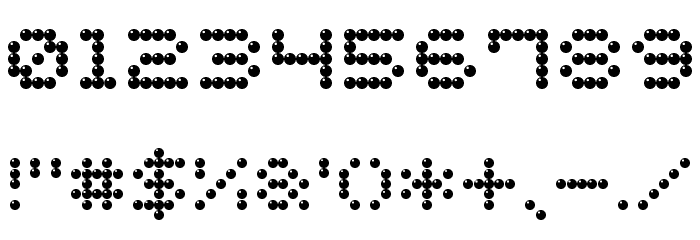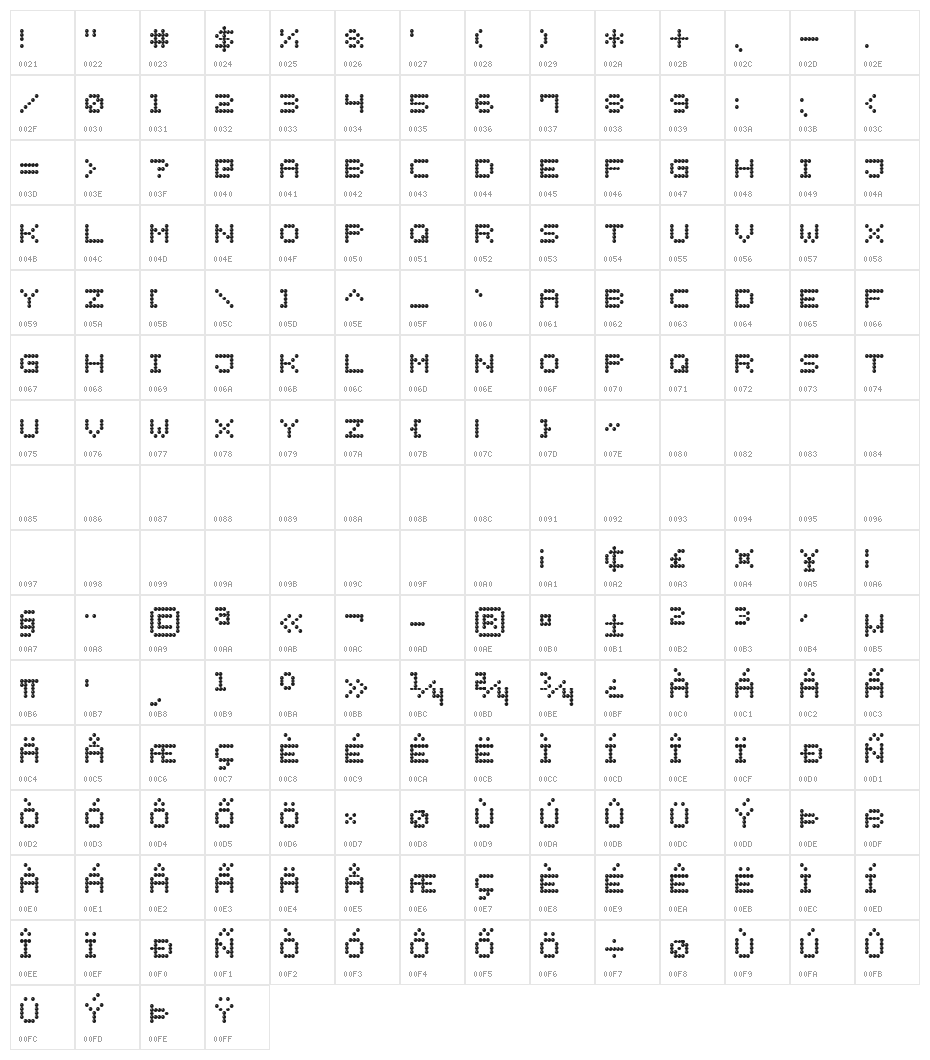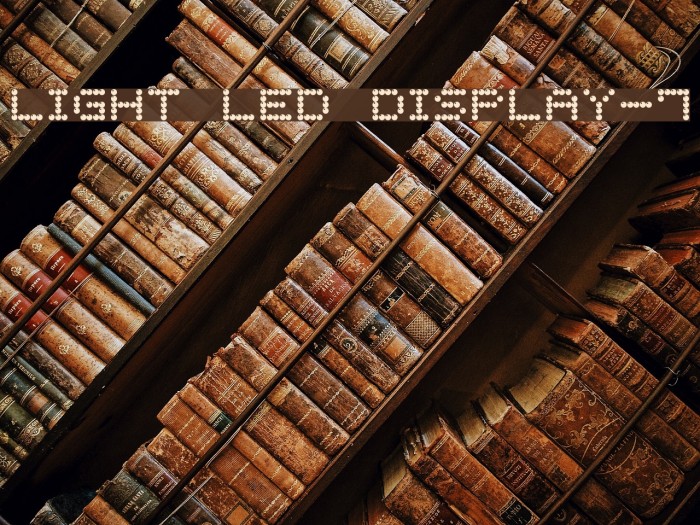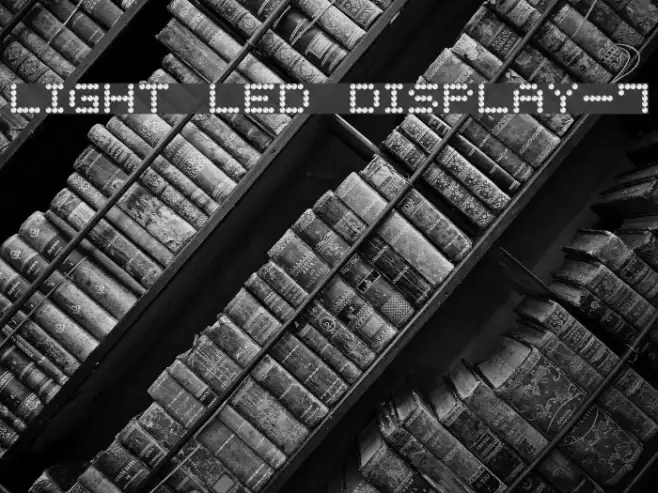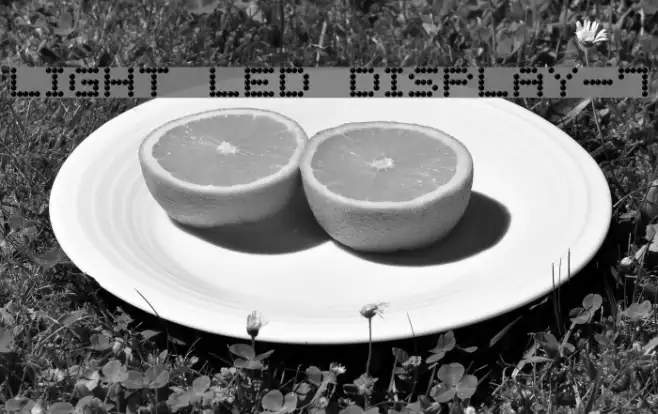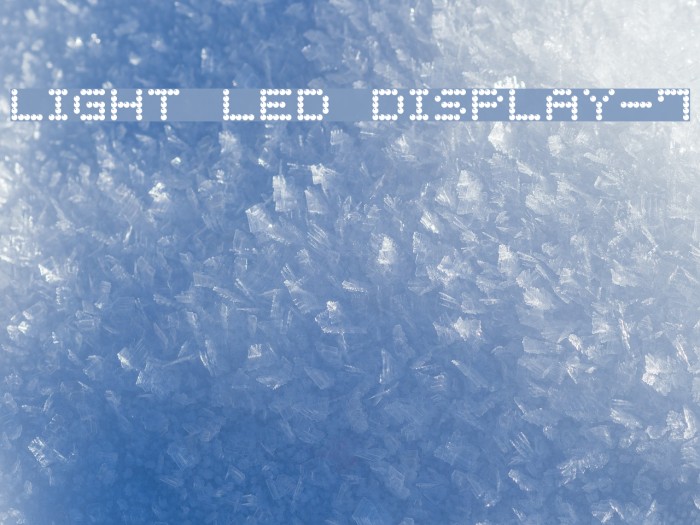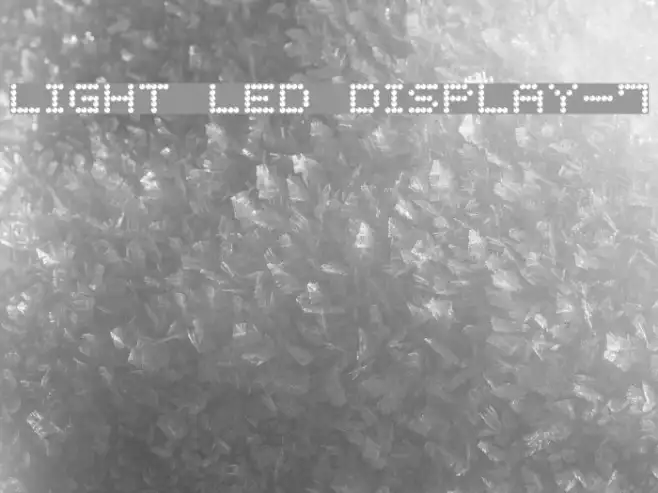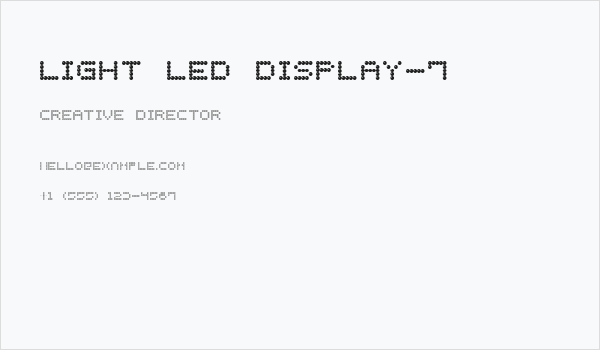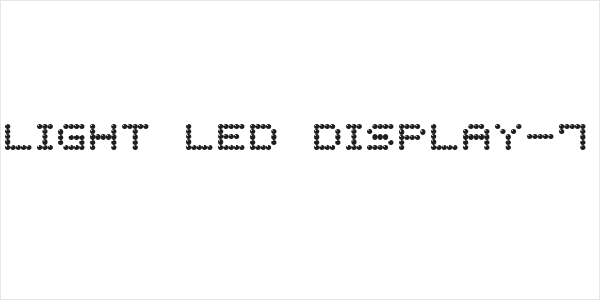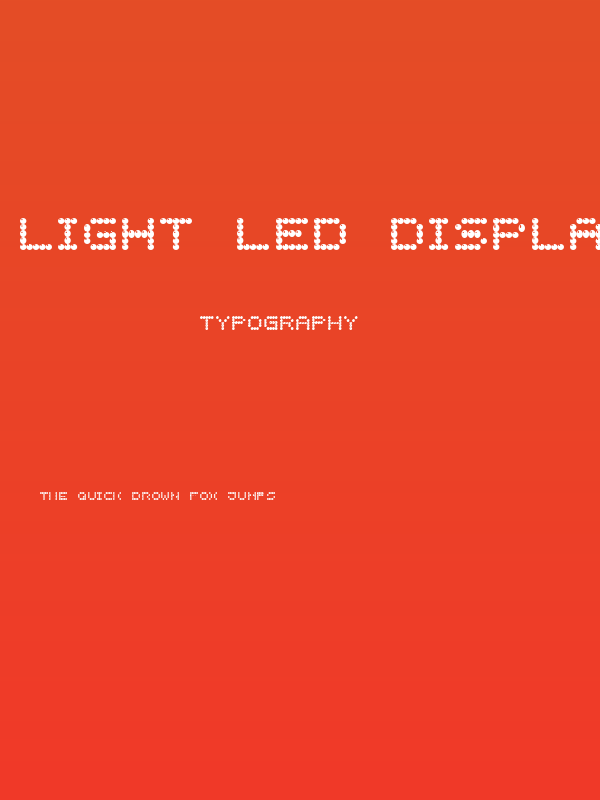
Light LED Display-7 Font
Light LED Display-7 Description
This font is designed to mimic the appearance of LED displays, featuring characters composed of small, evenly spaced dots. The design is highly geometric and structured, creating a digital and modern aesthetic. Each character is formed by a grid of dots, providing a consistent and uniform look across all letters and numbers. The font is particularly effective in conveying a sense of technology and futurism, making it suitable for digital displays and electronic-themed projects. The spacing between the dots is uniform, contributing to a clean and organized appearance. This style is reminiscent of vintage digital clocks and signage, offering a nostalgic yet contemporary feel.
| Use Case | Headlines, Logos, Digital displays |
| Proposed Projects | Ideal for digital displays, tech-themed designs, electronic signage, and retro-futuristic projects. |